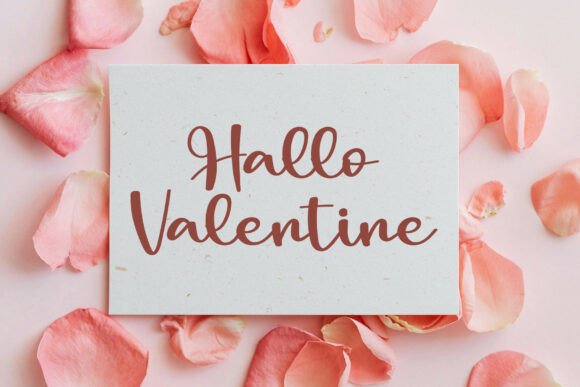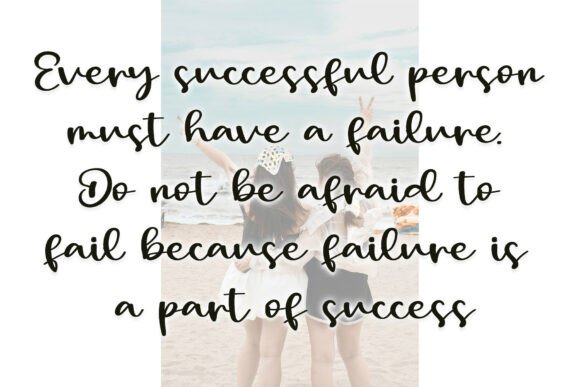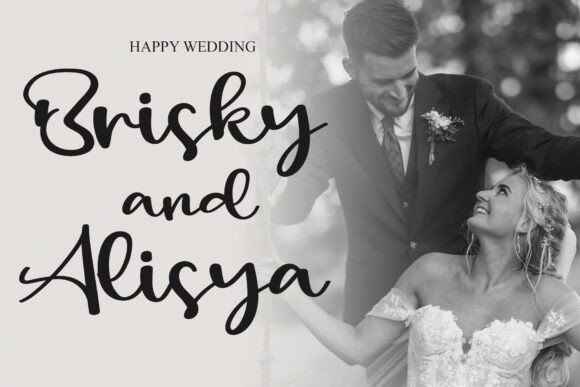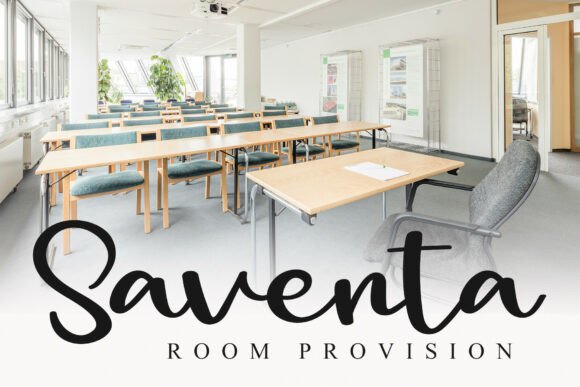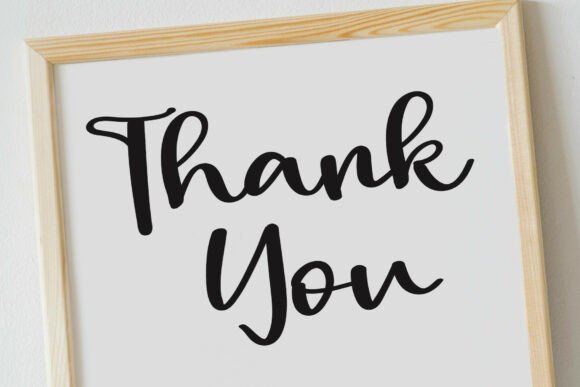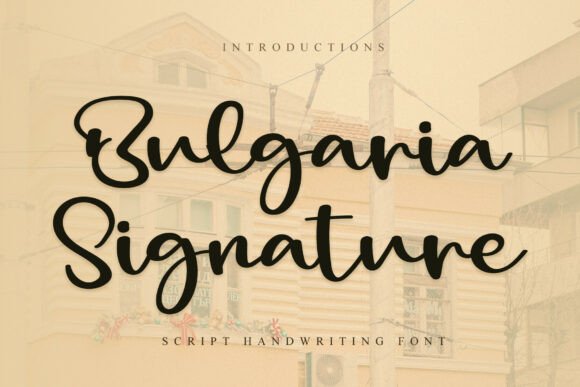
Introducing Bulgaria Signature Font: The Epitome of Elegant Script Handwriting
In the realm of typography, few fonts manage to capture the essence of human touch as effortlessly as the Bulgaria Signature font. This beautiful script handwriting font is a masterclass in elegance, nostalgia, and personal connection. Its fluid, flowing strokes seem to dance across the page, as if penned just moments ago. The Bulgaria Signature typeface is a thoughtful design that exudes warmth and authenticity, making it the perfect choice for projects that require a “handmade” or “bespoke” aesthetic.
The Characteristics of Bulgaria Signature Font
At the heart of the Bulgaria Signature font lies its unique blend of sophistication and approachability. The rhythmic loops and natural connections between letters give it a fluid, organic feel that is both visually appealing and highly legible. This elegant script font features:
- Fluid, flowing strokes that mimic handwriting
- Rhythmic loops and natural connections for a sophisticated yet approachable character
- Authentic and warm aesthetic, perfect for “handmade” or “bespoke” projects
- Exceptional legibility, even at smaller sizes
- Artistic flair, ideal for creative and design-focused projects
Perfect Applications for Bulgaria Signature Font
The Bulgaria Signature font is incredibly versatile, making it suitable for a wide range of applications. Some of the most popular uses for this elegant script font include:
- High-end travel blogs: Add a touch of sophistication and wanderlust to your travel blog with the Bulgaria Signature font.
- Intimate event stationery: Create beautiful, bespoke wedding invitations, save-the-dates, and other event stationery with this elegant script font.
- Personalized “thank you” cards: Express your gratitude with a personal touch, using the Bulgaria Signature font to add a sense of warmth and authenticity.
- Professional watermarks on photography: Add a touch of elegance to your photography with a subtle, sophisticated watermark.
- Romantic poetry: Bring your poetry to life with the beautiful, flowing strokes of the Bulgaria Signature font.
Pairing Bulgaria Signature Font with Other Typefaces
To truly make the most of the Bulgaria Signature font, it’s essential to pair it with complementary typefaces. For a modern, high-contrast look that is popular in editorial layouts and fashion branding, try pairing Bulgaria Signature with simple, clean sans-serif fonts. This striking combination creates a beautiful visual hierarchy, perfect for:
- Editorial layouts: Create stunning magazine spreads, articles, and blog posts with a mix of elegant script and clean sans-serif fonts.
- Fashion branding: Elevate your fashion brand with a sophisticated, high-end aesthetic that combines Bulgaria Signature with clean, modern sans-serif fonts.
Why Choose Bulgaria Signature Font?
In a world where digital communication dominates, the Bulgaria Signature font offers a refreshing respite. Its elegant, handwriting-inspired design provides a personal touch that is impossible to replicate with standard fonts. By choosing Bulgaria Signature, you can:
- Add a personal touch to your designs: Stand out in a crowded digital landscape with a unique, bespoke aesthetic.
- Evoking nostalgia and warmth: Create an emotional connection with your audience through the authentic, handwriting-inspired design of Bulgaria Signature.
- Elevate your brand: Use Bulgaria Signature to add a touch of sophistication and elegance to your branding, packaging, and marketing materials.
Whether you’re a designer, craft, or simply someone who appreciates beautiful typography, the Bulgaria Signature font is an exceptional choice. Its unique blend of elegance, authenticity, and artistic flair makes it the perfect addition to any project. So why wait? Embrace the effortless charm of human touch with the Bulgaria Signature font, and discover a world of creative possibilities.